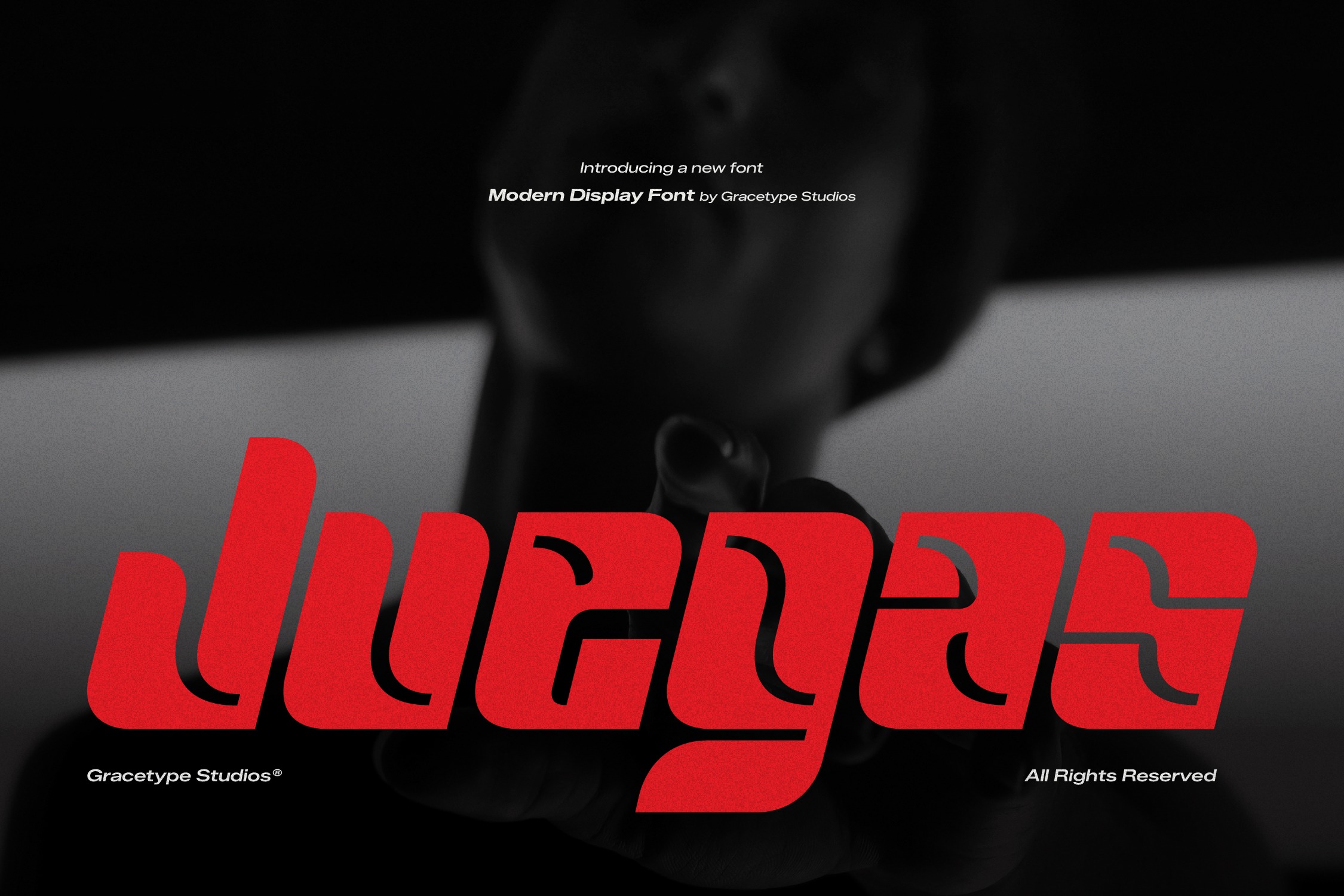
Juegas – Modern Diplay Font
Juegas – Modern Diplay Font is a flexible and reliable font created to fit multiple design needs, from branding and packaging to social media and editorial layouts. Juegas | Modern Display Font, from Gracetypestudio, suitable for any projects such as: logos, branding projects, homeware designs, product packaging, mugs, quotes, posters, shopping bags, t-shirts, book covers, name card, invitation cards, greeting cards, label, photography, watermark, special events, and all your other lovely projects that need a sans taste.